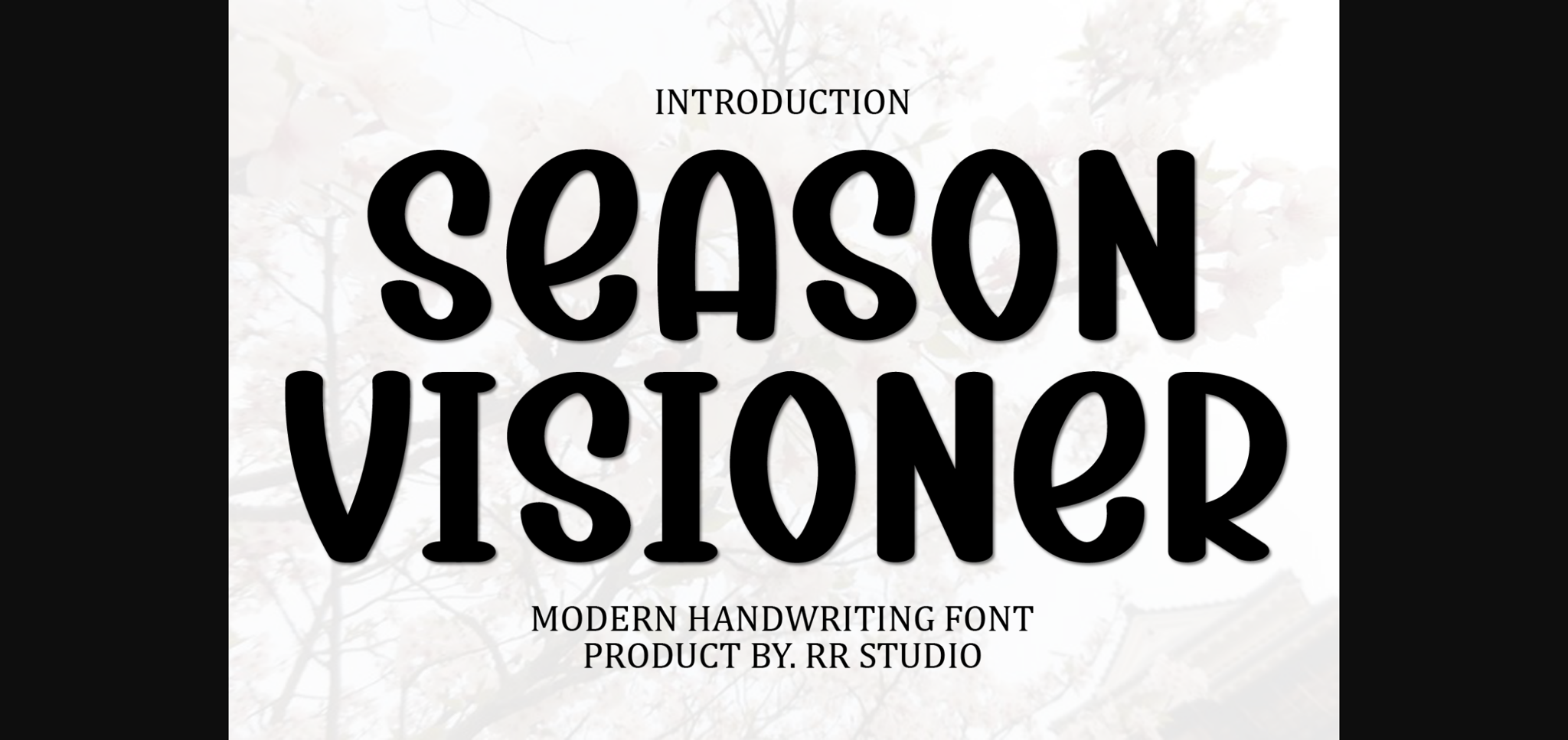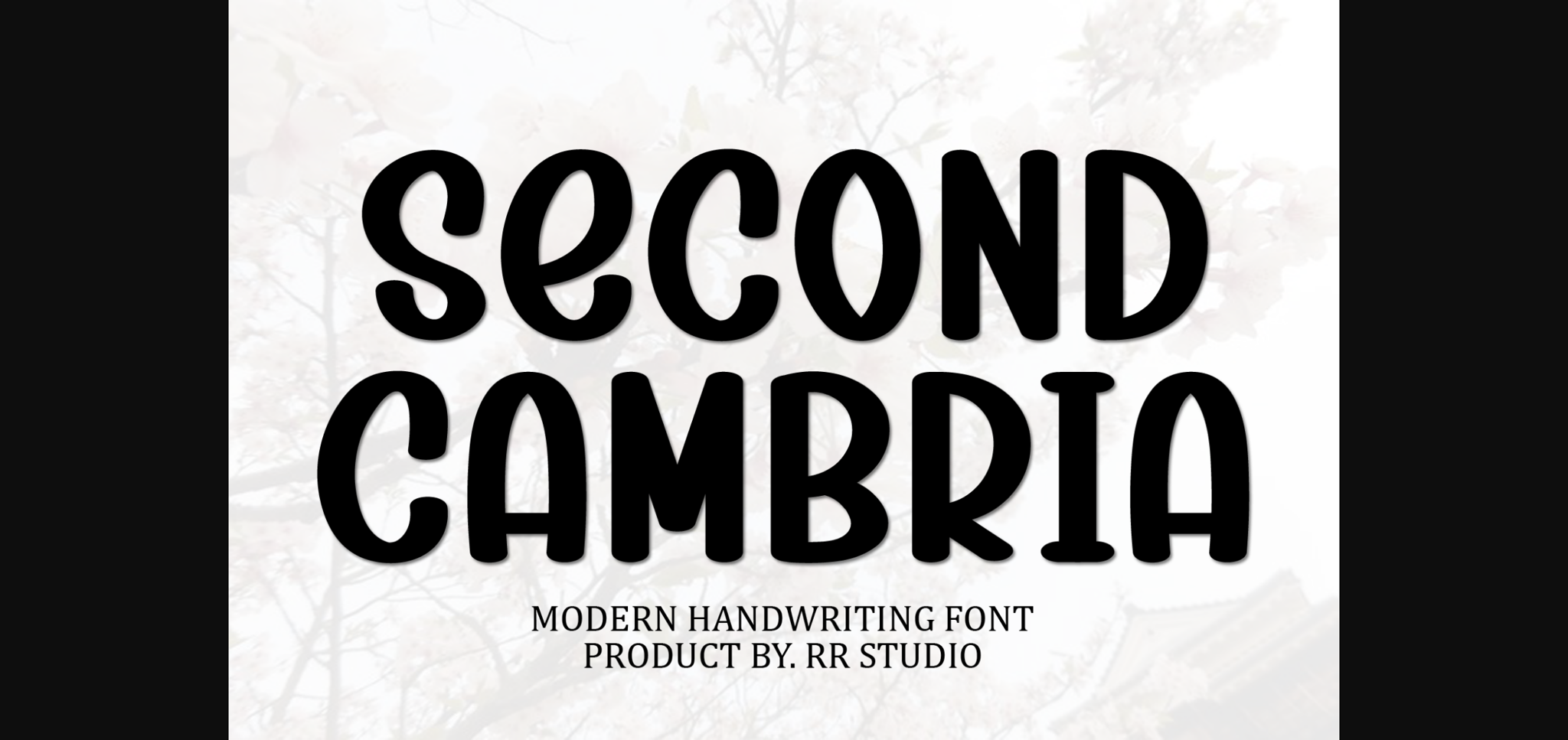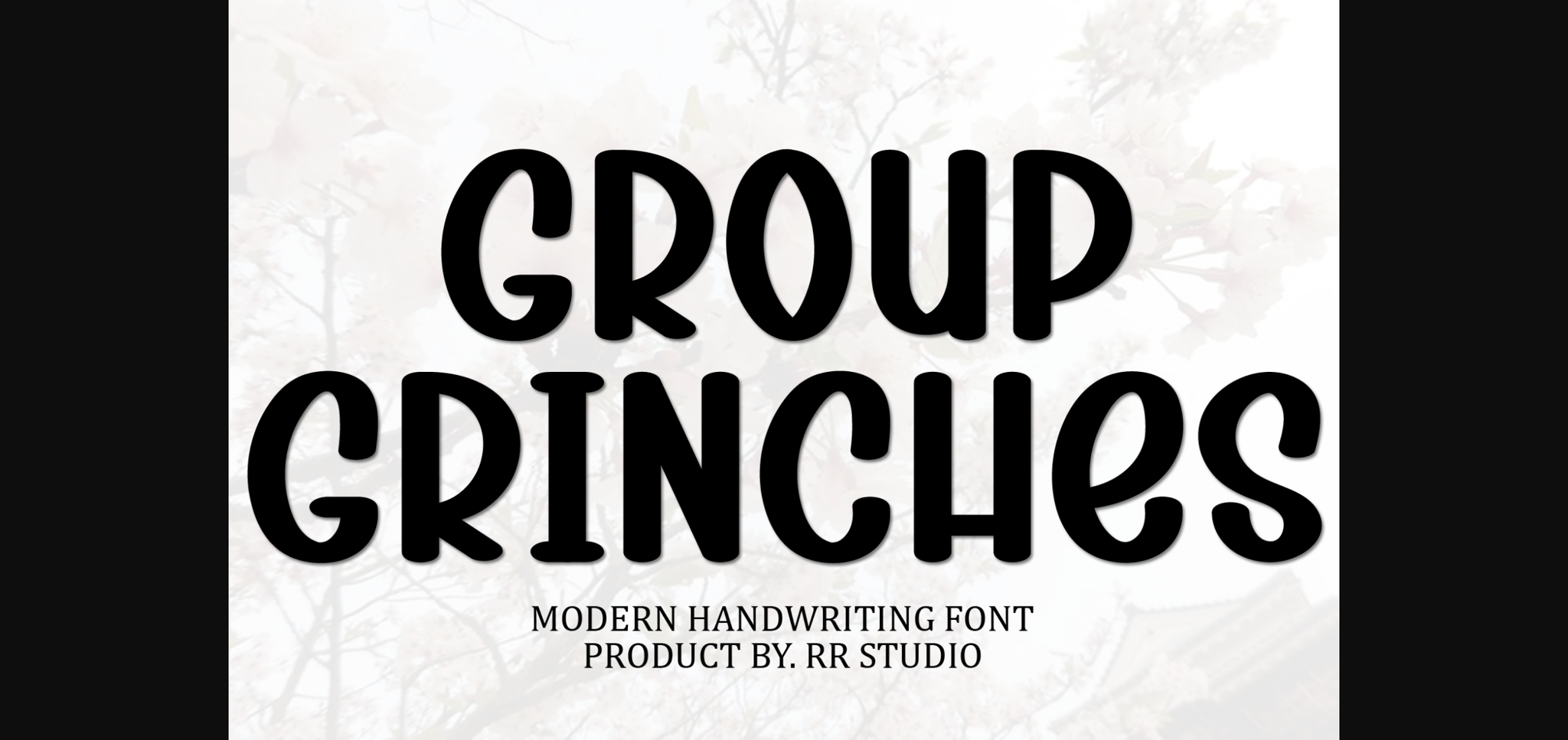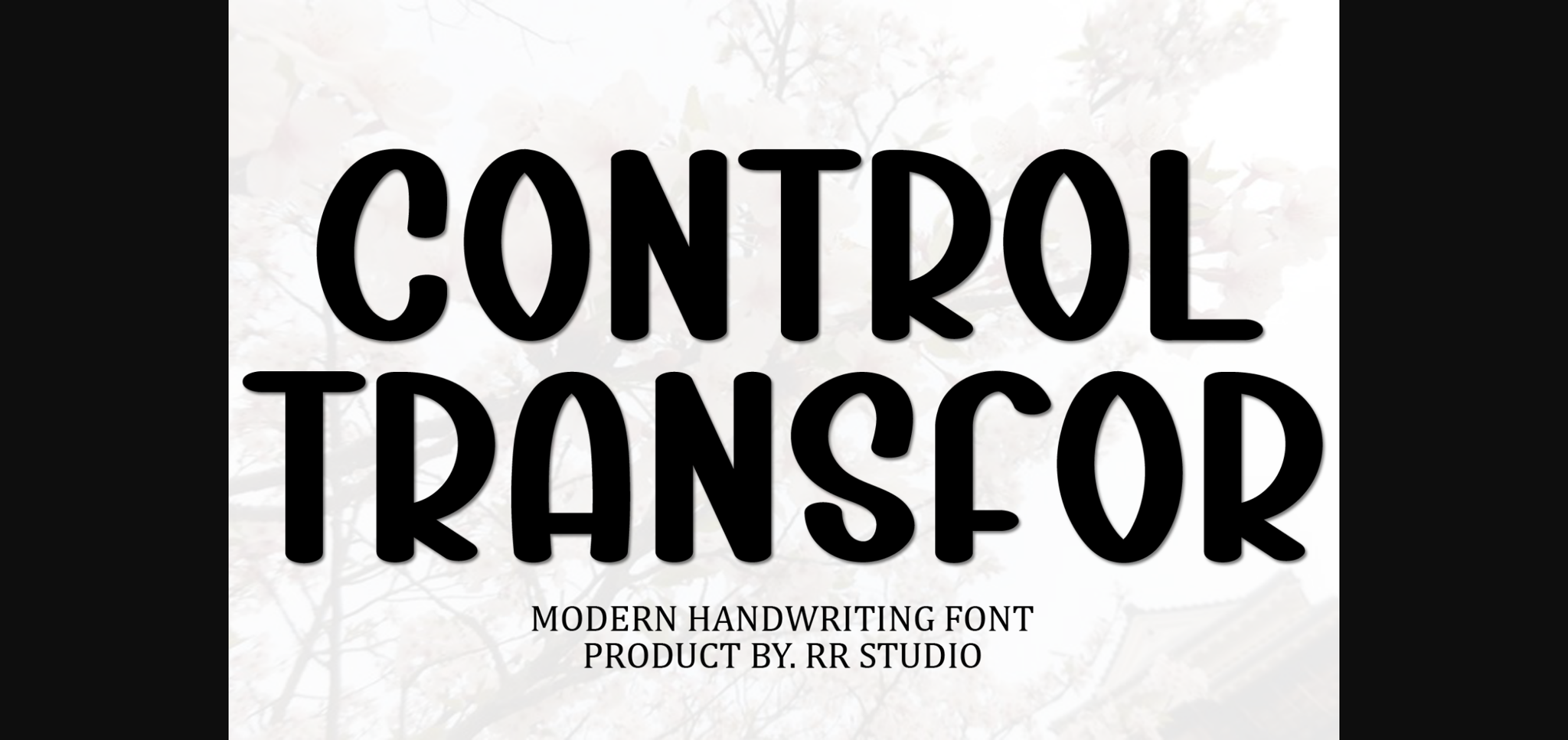
Season Visioner Font
About Season Visioner Font
Season Visioner is a fun and friendly sans-serif font designed to evoke a sense of warmth and approachability. With clean, rounded letterforms, it brings a playful charm to your designs. Ideal for projects seeking a welcoming and lighthearted aesthetic, Season Visioner adds a delightful touch to your creative expressions.